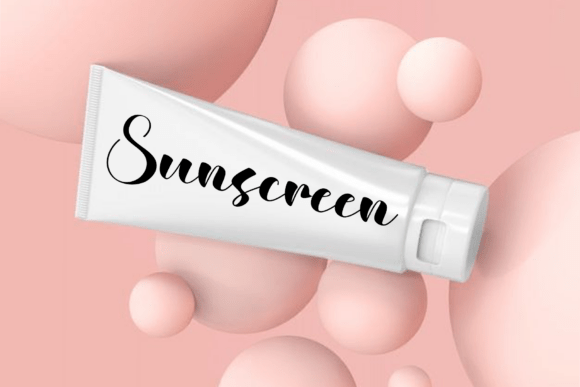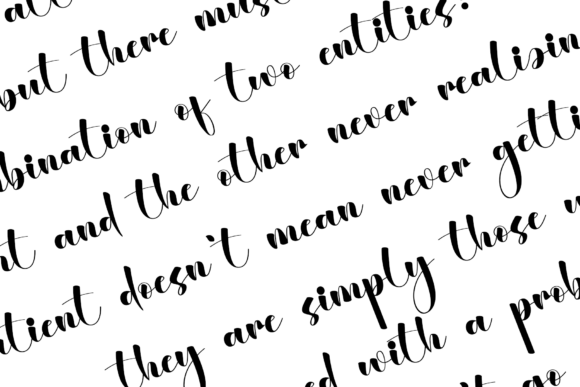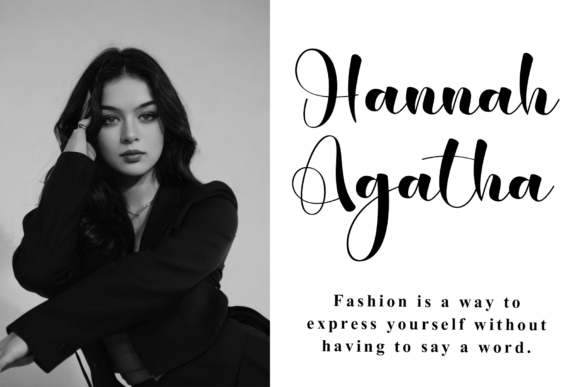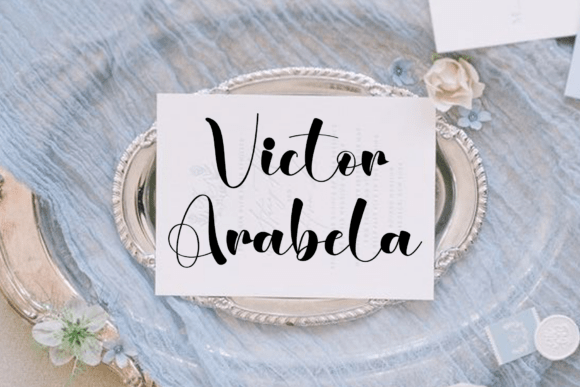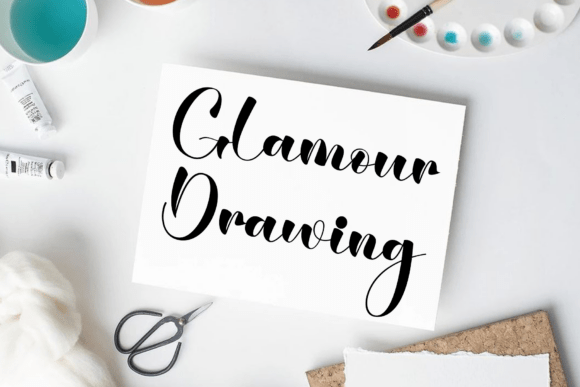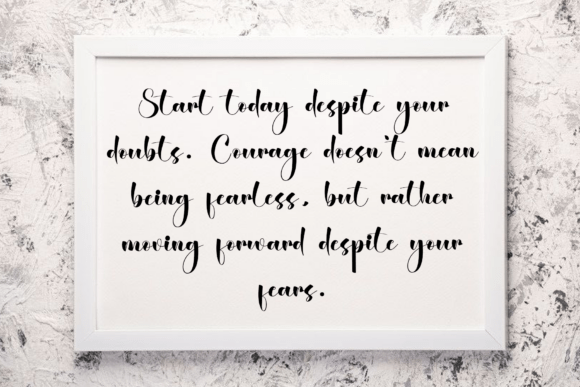
It’s the time of year when creativity flows like hot cocoa on a chilly winter’s night. You’re brainstorming ideas for your holiday campaigns, and the perfect font is on your wish list. Enter Christmas Font, a stunning modern calligraphy font that captures the essence of the season in a beautiful, expressive way.
With its bold, swashy letters and organic curves, Christmas Font brings a touch of magic to your designs. Whether you’re crafting a festive logo, Instagram post, or wedding invitation, this font is sure to make a confident and stylish impression. As a designer, you’ll appreciate the PUA-encoded glyphs and alternate characters that make it effortless to access all the creative possibilities. Get ready to make this holiday season one to remember with the perfect font by your side.
Key Features of Christmas Font
- Font Family: Christmas Font is a unique, hand-drawn font designed to evoke the spirit of the holiday season.
- Character Count: The font includes a wide range of characters, including uppercase and lowercase letters, numbers, and punctuation marks.
- Size: Available in a single weight, making it easy to use in various design contexts without worrying about font size compatibility issues.
- Unique Characteristics: The font’s hand-drawn design and intricate details make it perfect for adding a touch of whimsy and festive charm to holiday-themed designs, such as greeting cards, posters, and digital invitations.
Designer Review: Christmas Font
Overall, I think Christmas Font is a solid choice for holiday-themed projects, but it’s not without its limitations. Let’s dive into what works well and what doesn’t.
- Unique and festive feel: Christmas Font captures the spirit of the holiday season with its playful, cursive design.
- Good legibility: The font is clear and easy to read, even at smaller sizes.
- Versatility: Christmas Font can be used for a range of applications, from greeting cards to website headers.
- Limited font weights: Christmas Font only comes in a few weights, which may limit its use in certain design scenarios.
- No international support: The font may not be suitable for languages that require a broader range of characters.
- Not suitable for body text: While Christmas Font is great for headlines and titles, it may not be the best choice for body text due to its playful, cursive design.
While Christmas Font has its limitations, it’s a great choice for holiday-themed projects that require a festive, playful feel. Just be aware of its limitations and use it accordingly. With some careful planning, Christmas Font can add a touch of holiday magic to your designs.
Christmas Font is perfect for creating festive holiday designs, including cards, invitations, and social media graphics. It’s also great for adding a touch of whimsy to your branding and marketing materials. Use it to create custom graphics, illustrations, and typography-based designs that will make your projects stand out.